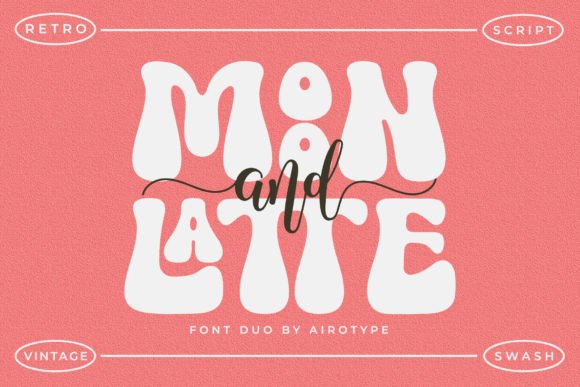
Introducing Moon and Latte Font, the ultimate choice for those seeking a modern and exquisite duo font experience. Created by airotype, this font family is specifically designed for users who appreciate the perfect combination of script and display fonts.
Let your imagination soar as you explore the boundless possibilities that Moon and Latte has to offer. The script font gracefully embraces elegant and flowing letterforms, allowing your words to effortlessly dance across the page. Meanwhile, the display font commands attention with its bold and eye-catching shapes, ensuring that your message stands out from the crowd.
Whether you choose to use these fonts separately or together, the result is guaranteed to be nothing short of stunning. Capture the essence of your brand with captivating designs that leave a lasting impression. From logos to packaging, Moon and Latte Font is the secret ingredient that will elevate your creations to new heights.
But that's not all – Moon and Latte Font goes above and beyond by offering a PUA encoding feature. This means that you can effortlessly access a delightful array of glyphs and swashes, adding an extra touch of sophistication to your designs. With Moon and Latte Font, every project becomes a masterpiece.
Indulge your creativity and unlock the true potential of your designs with Moon and Latte Font. Experience the seamless fusion of elegance and boldness that will captivate your audience and leave them craving more. Join the ranks of designers who have already discovered the magic of Moon and Latte Font – your work deserves nothing less than the best.